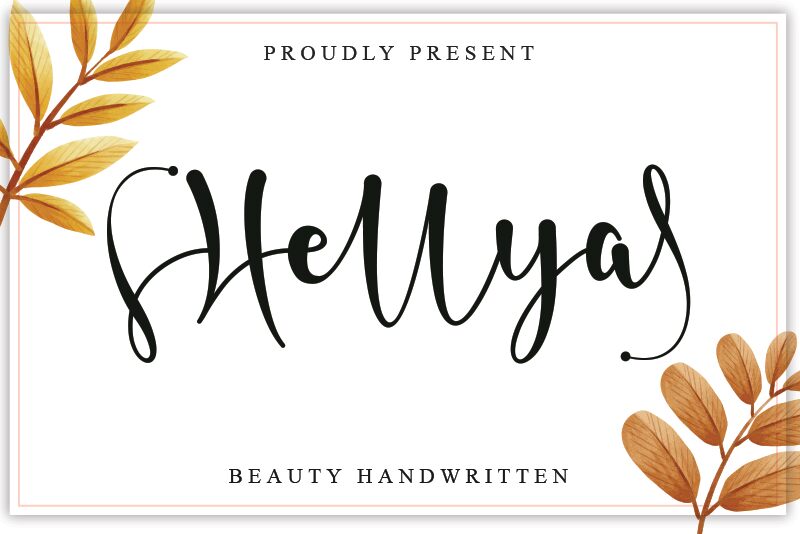
Hellya is the perfect semi-light font for projects that require a touch of elegance and creativity. Designed by Harjuno Kristanto, this beauty handwritten typeface adds a personal and unique feel to any project. The flowing curves and delicate lines of Hellya create a sense of femininity, making it ideal for use in wedding invitations, fashion blogs, or even as a signature font for branding materials. Its semi-light weight makes it easy to read while maintaining its graceful appearance. Whether you're designing an invitation or crafting an inspiring quote graphic, Hellya is the perfect addition to your creative arsenal.